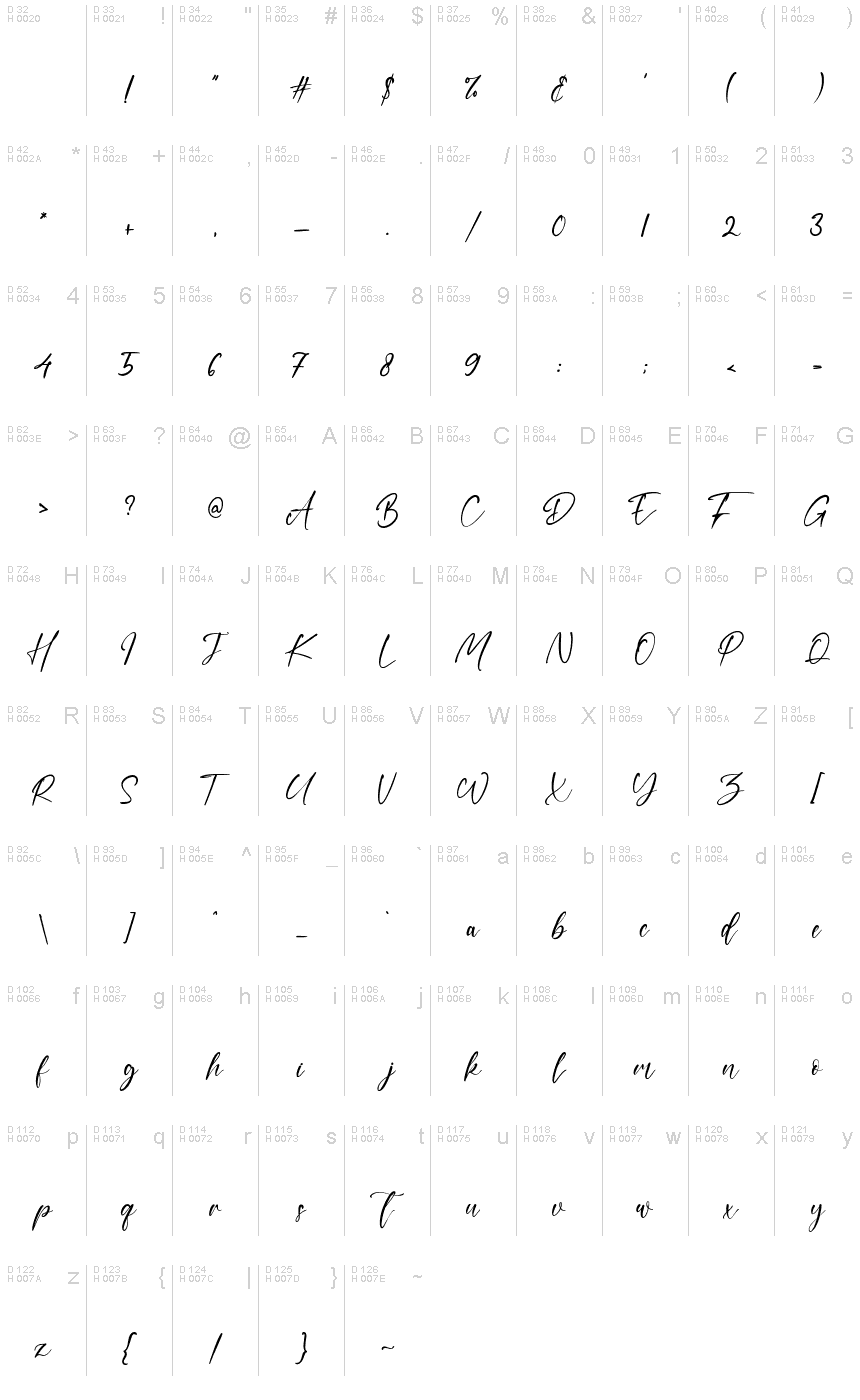
Bon Cheers
Discover the epitome of elegance with Bon Cheers, a luxurious signature font by Kong Font. Its semi-light weight captures the essence of sophistication, making it perfect for refined branding projects such as high-end fashion labels, exclusive event invitations, or luxury hotel identities. Whether creating opulent packaging designs or crafting exquisite product logos, Bon Cheers adds an air of refinement and class to any project. Elevate your creations and leave a lasting impression with this exquisite typeface that exudes timeless beauty and grace.